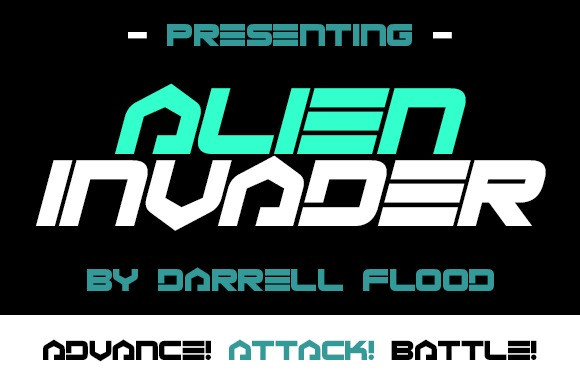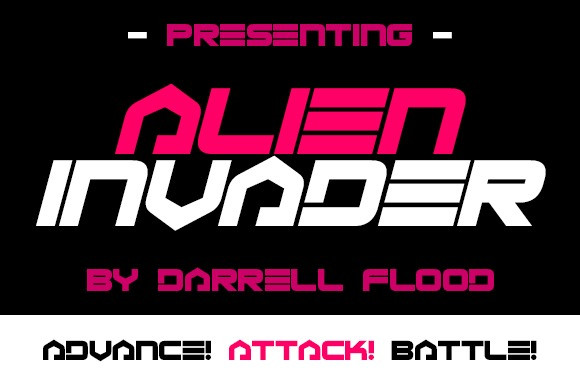
Alien Invader Font
Alien Invader Font, a slick, smooth, sci-fi font in a unique, alien style! Perfect for space adventures, high tech themes, crypto scene updates and general sci-fi use!